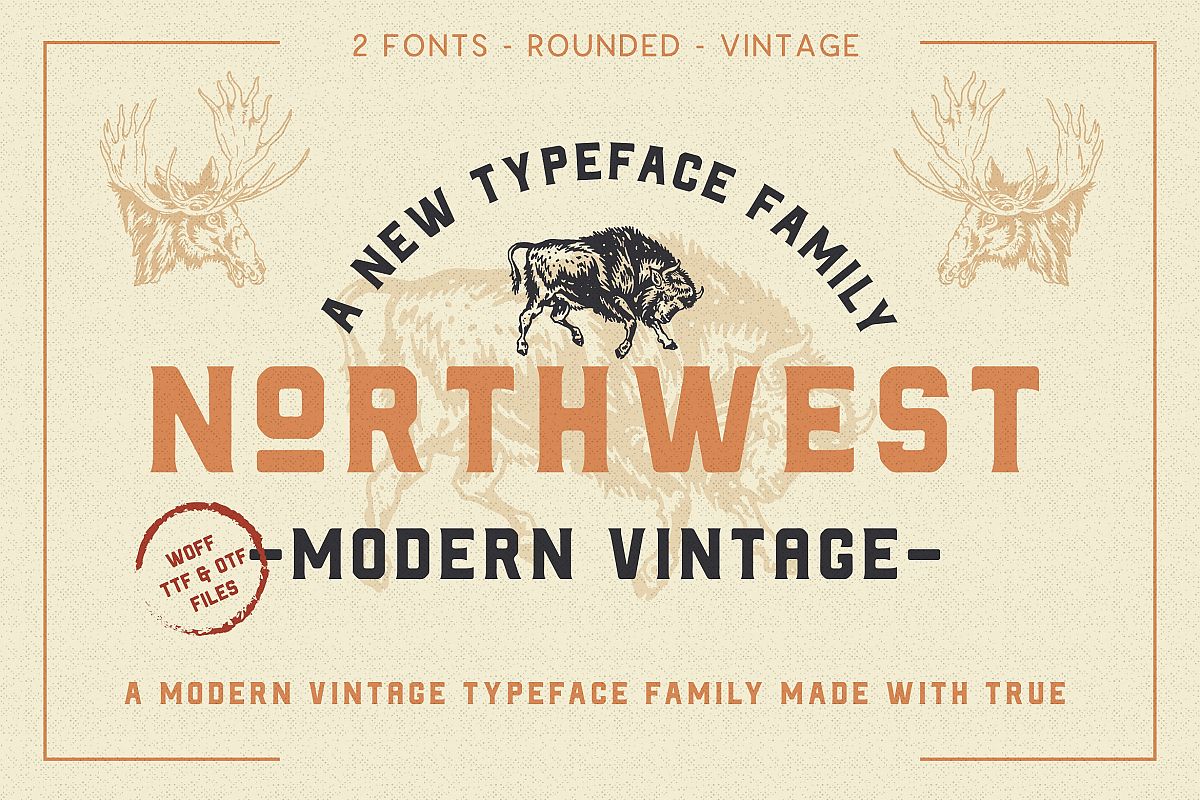
The Northwest - Modern Vintage Type Family
Northwest is a vintage sans serif family, Inspired by Vintage Wild west culture and combining with modern vintage touch. An All-Caps Sans Serif pairing with a Clean, Rounded & textured version of each. Choose between varying texture strength for your desired effect. This font is great for logo print, Restaurant Menus & Signage, Pubs, Bars, Tattoo Shops, Barber Shops, Butcher Shops, Handmade Brands, BBQ, Anything vintage styles related, Etc
All caps
Numeral, Punctuation and Symbol
Stylistic Alternates
2 styles : Vintage Regular, Rounded,